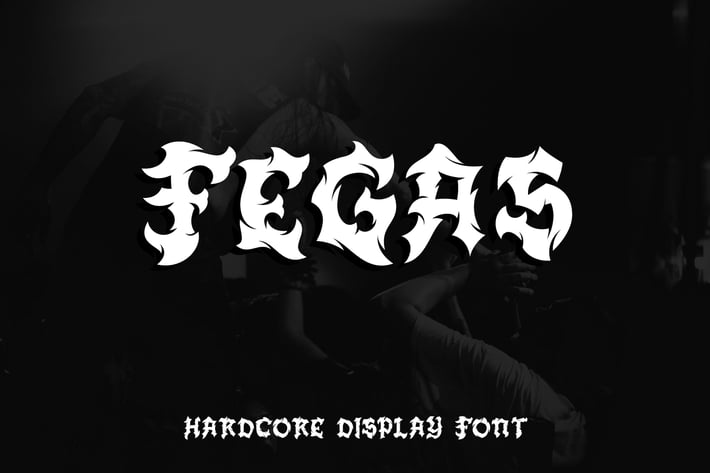
Fegas - Hardcore Display Font
Hello! We proudly present FEGAS.
Fegas is a decorative Hardcore and Horror display font. Fegas can be used in any works and event such as Music concer, Halloween, book title, band cover, youtube title, movie, fantasy book, and many more.